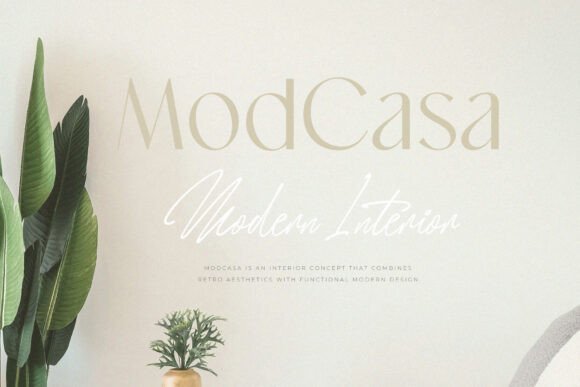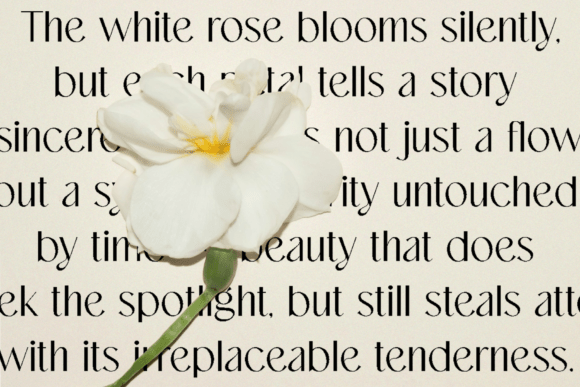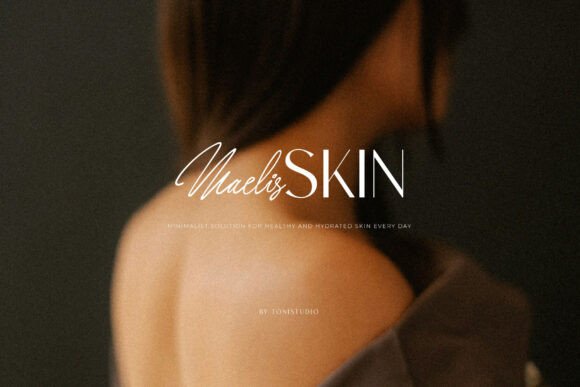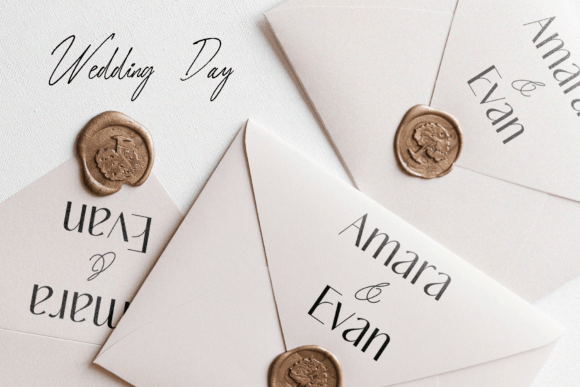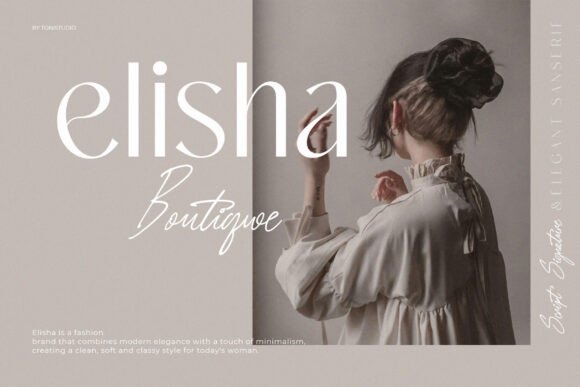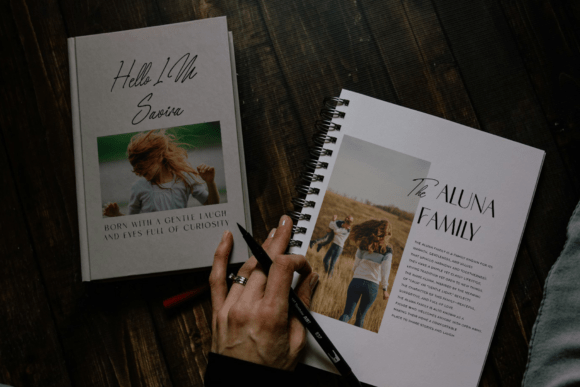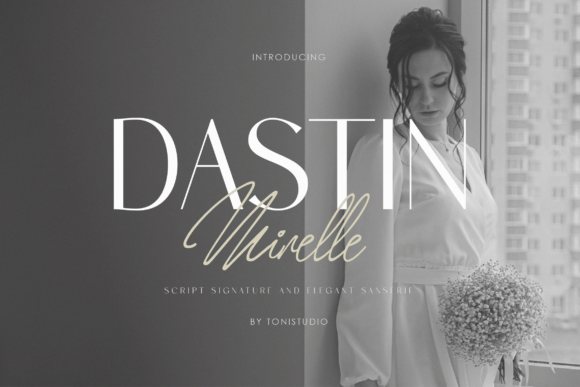
Introducing Dastin Mirelle Font: Elevate Your Designs with Luxurious Elegance
In the world of typography, finding the perfect font duo that seamlessly blends modern sophistication with classic charm can be a daunting task. However, designers and crafters can now rejoice with the introduction of Dastin Mirelle Font, a luxurious font duo that effortlessly combines a sleek modern sans serif with an elegant signature script.
A Perfect Harmony of Style and Elegance
Dastin Mirelle Font Duo is a masterful creation that captures the essence of contemporary style and timeless elegance. The sans serif font boasts clean lines and refined proportions, making it an ideal choice for premium branding, editorial layouts, and minimalist packaging. On the other hand, the script font flows effortlessly with soft, handwritten curves and delicate ligatures, exuding femininity and sophistication.
One of the standout features of Dastin Mirelle Font Duo is its versatility. Designers can use the fonts together or separately to create beautifully cohesive designs that radiate grace, confidence, and timeless elegance. Whether you’re working on a logo, branding project, wedding invitation, fashion editorial, or beauty product packaging, this font duo is sure to impress.
The possibilities are endless with Dastin Mirelle Font Duo. Here are some design ideas to get you started:
- Logos & Branding: Create a lasting impression with a custom logo that exudes elegance and sophistication.
- Wedding Invitations: Set the tone for a luxurious and memorable wedding celebration with beautifully designed invitations.
- Fashion Editorials: Elevate your fashion editorials with a font duo that embodies style and glamour.
- Beauty Product Packaging: Stand out in the beauty industry with packaging that showcases your brand’s commitment to luxury and quality.
- Instagram Content: Create visually stunning Instagram posts and stories that showcase your brand’s personality and style.
- Quotes and Typography: Add a touch of elegance to your quotes and typography with a font duo that commands attention.
Why Choose Dastin Mirelle Font?
So, what sets Dastin Mirelle Font Duo apart from other font duos on the market? Here are just a few reasons why designers and crafters should consider adding this luxurious font duo to their collection:
- Unique and Exclusive: Dastin Mirelle Font Duo is a one-of-a-kind creation that will set your designs apart from the rest.
- High-Quality Typography: The font duo features high-quality typography with precise lines and curves, ensuring that your designs look professional and polished.
- Multipurpose: Dastin Mirelle Font Duo can be used for a wide range of design projects, from logos and branding to packaging and editorial layouts.
In conclusion, Dastin Mirelle Font Duo is a luxurious font duo that offers designers and crafters a unique opportunity to elevate their designs with elegance and sophistication. With its sleek modern sans serif and elegant signature script, this font duo is perfect for a wide range of design projects. Whether you’re working on a logo, branding project, or editorial layout, Dastin Mirelle Font Duo is sure to impress. So why wait? Add this stunning font duo to your collection today and start creating designs that radiate grace, confidence, and timeless elegance.